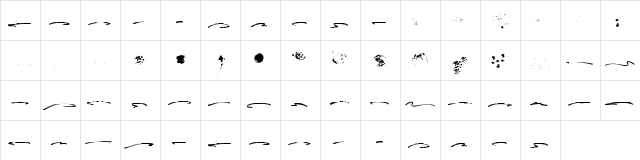
Fusterd Bonus Regular
Design Context for Fusterd Bonus Typeface
Fusterd Bonus is a composed and adaptable typeface that performs quietly and consistently across a wide range of design contexts.